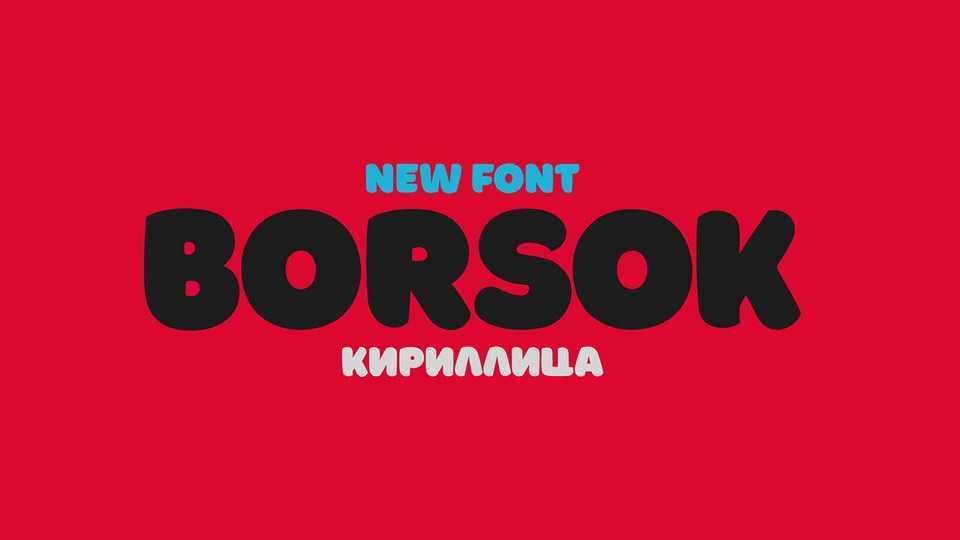
Download Borsok font, a bold sans serif font with cartoon look. Borsok font perfectly suits fot logos, branding, headlines and posters, kids design and other creatives.